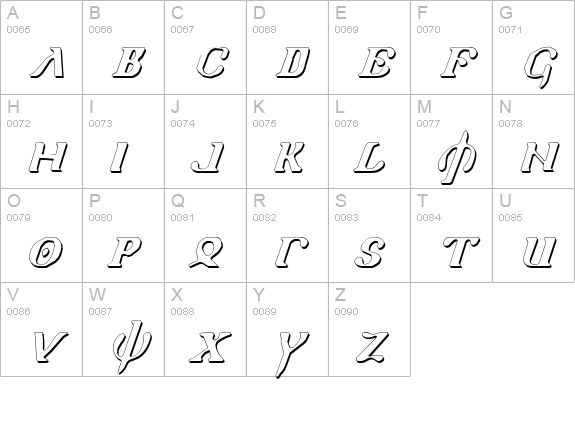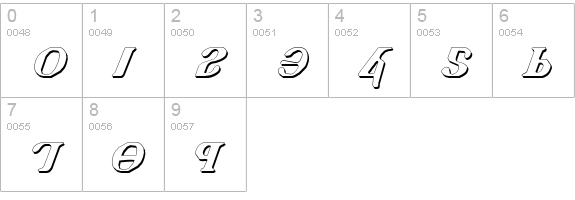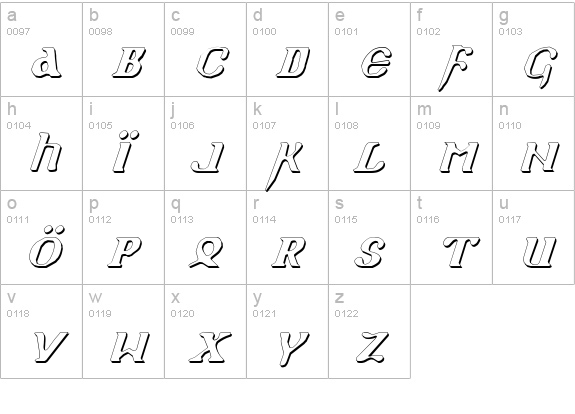
Holy Empire Shadow Italic is a distinctive, italic variant in the Holy typeface family \xE2\x80\x94 well suited to design and typography projects.
The Holy Empire Shadow Italic font is a stunning and bold typeface that exudes elegance and sophistication. Its unique shadow effect adds depth and drama to any design, making it perfect for headlines, logos, and branding projects. With its sleek and modern style, this font effortlessly captures attention and leaves a lasting impression. What's even better is that the Holy Empire Shadow Italic font is available for free download at FontsMarket.com. So whether you're a designer looking to add a touch of luxury to your projects or a business owner seeking a standout font for your marketing materials, this font is a fantastic choice. Download it today and elevate your designs with the timeless beauty of Holy Empire Shadow Italic.